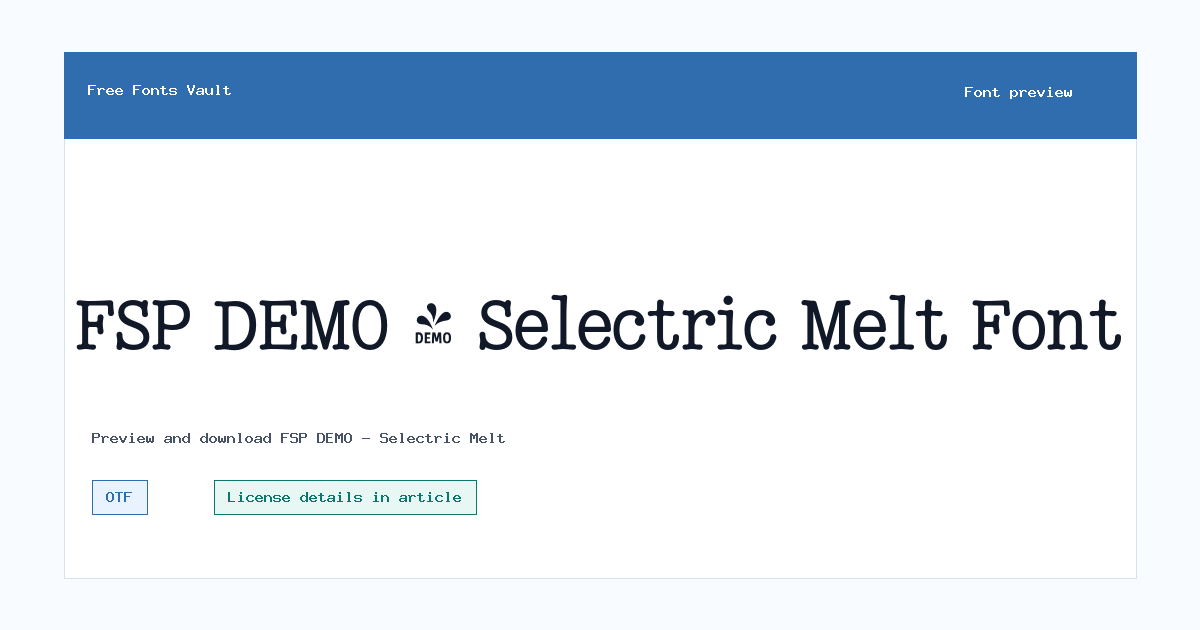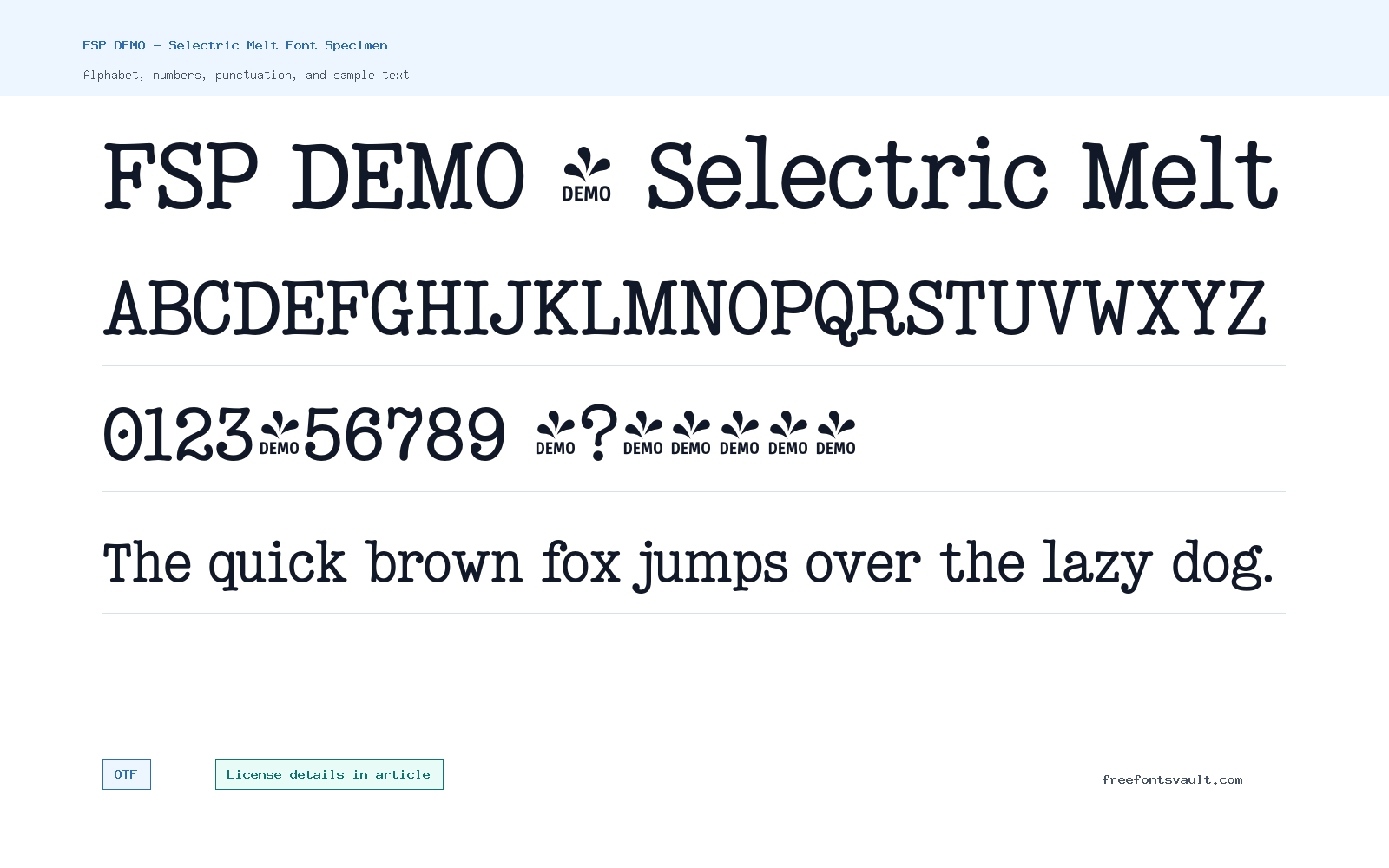
FSP DEMO - Selectric Melt
FSP DEMO - Selectric Melt font preview showing the family name
FSP DEMO - Selectric Melt Font
FSP DEMO - Selectric Melt font specimen showing alphabet, numbers, and sample text
• Designer Alexander Bobrov
• Foundry Alexander Bobrov
FSP DEMO – Selectric Melt font.
Selectric Melt is a demo OpenType display font credited to Alexander Bobrov, made for designers who want to test a more unusual title style before committing it to a layout.
About Selectric Melt Font
Selectric Melt is not the kind of font you choose for quiet body copy. The demo naming and the one-style package point toward display use: titles, poster words, thumbnail lettering, album-style text, experimental covers, or brand sketches where the type is part of the visual idea. Start with the preview field and type the real headline you plan to use, because display faces can feel very different from one word to another.
A smart test is to compare all caps, title case, numbers, and common punctuation. If the letter rhythm looks strong at large size but tight in small UI areas, keep it for poster-scale text. If the demo version has limited characters or license limits, that should be handled before the design becomes part of a public campaign.
• Display-first personality for short text and bold visual concepts
• Credited to Alexander Bobrov
• Experimental headlines and poster lettering
• Cover mockups, thumbnails, and music or event graphics
• Short title treatments in editorial or campaign concepts
• Moodboards that need a more expressive display face
• One-off artwork where the font is tested at large size
Use Selectric Melt for short, high-impact wording. Test the exact title, then pair it with a neutral text font so the rest of the page remains readable. Avoid synthetic bold or italic styling unless you have tested the result carefully.
Who designed Selectric Melt?
The font is credited to Alexander Bobrov.
Does Selectric Melt include bold or italic styles?
Only one regular, normal-style variant is shown, so plan the design around that single style.
Where should I use Selectric Melt?
Use it for short display text such as poster titles, cover lettering, thumbnails, and experimental logo drafts rather than long paragraphs.